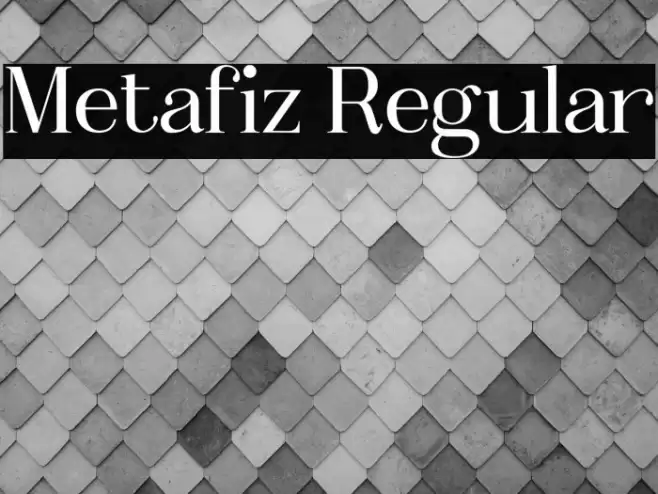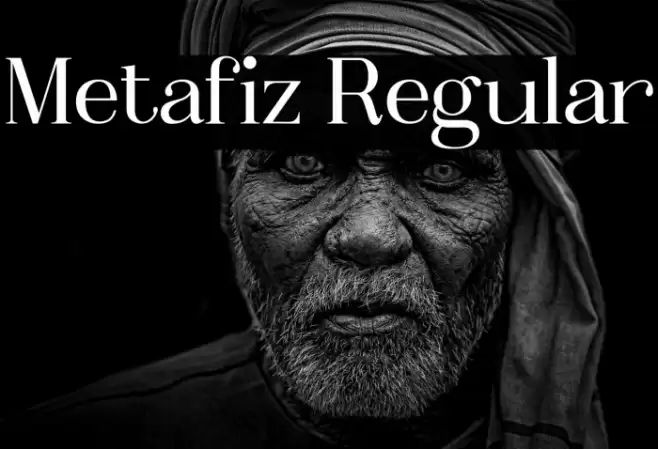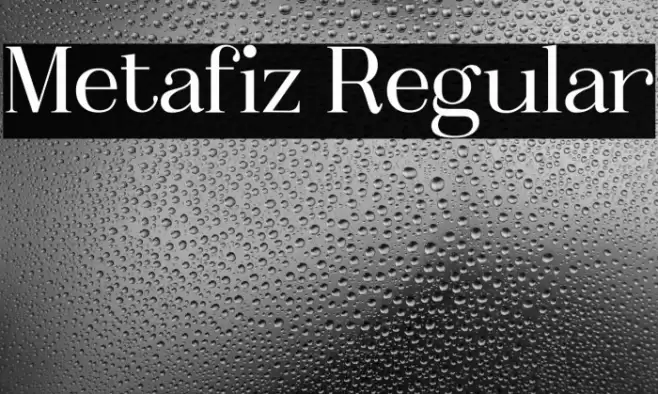
Metafiz Regular Font
Metafiz Regular Description
This font features a sophisticated and elegant serif design, characterized by its high contrast between thick and thin strokes. The uppercase letters exhibit a classic and refined style, with sharp serifs and a balanced structure. The lowercase letters maintain a harmonious flow, with rounded forms and subtle curves that enhance readability. The numerals are distinct and bold, ensuring clarity in numerical data presentation. Special characters are well-integrated, maintaining the overall aesthetic of the typeface. This font is ideal for projects that require a touch of elegance and tradition.
A sophisticated serif font with high contrast and elegant curves from Regular fonts.
- Proposed Projects: Ideal for editorial design, book covers, luxury branding, and formal invitations.
- Overall Style: Classic